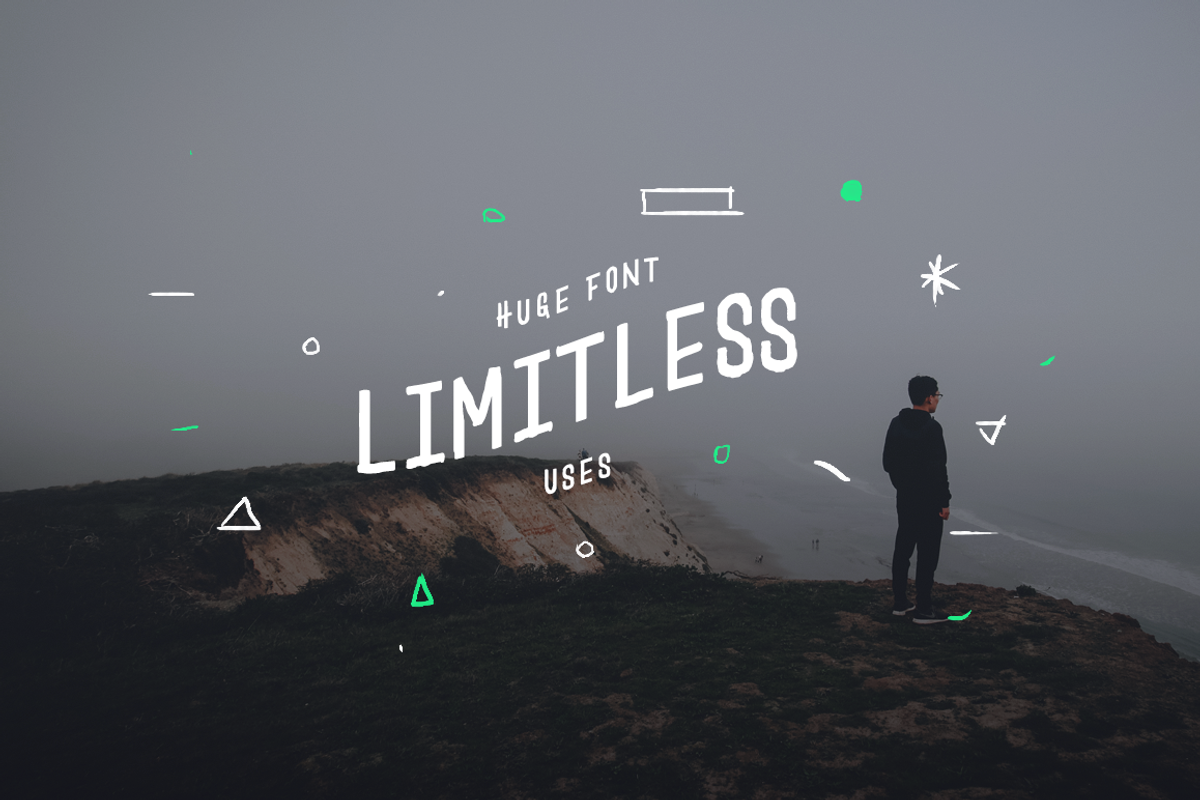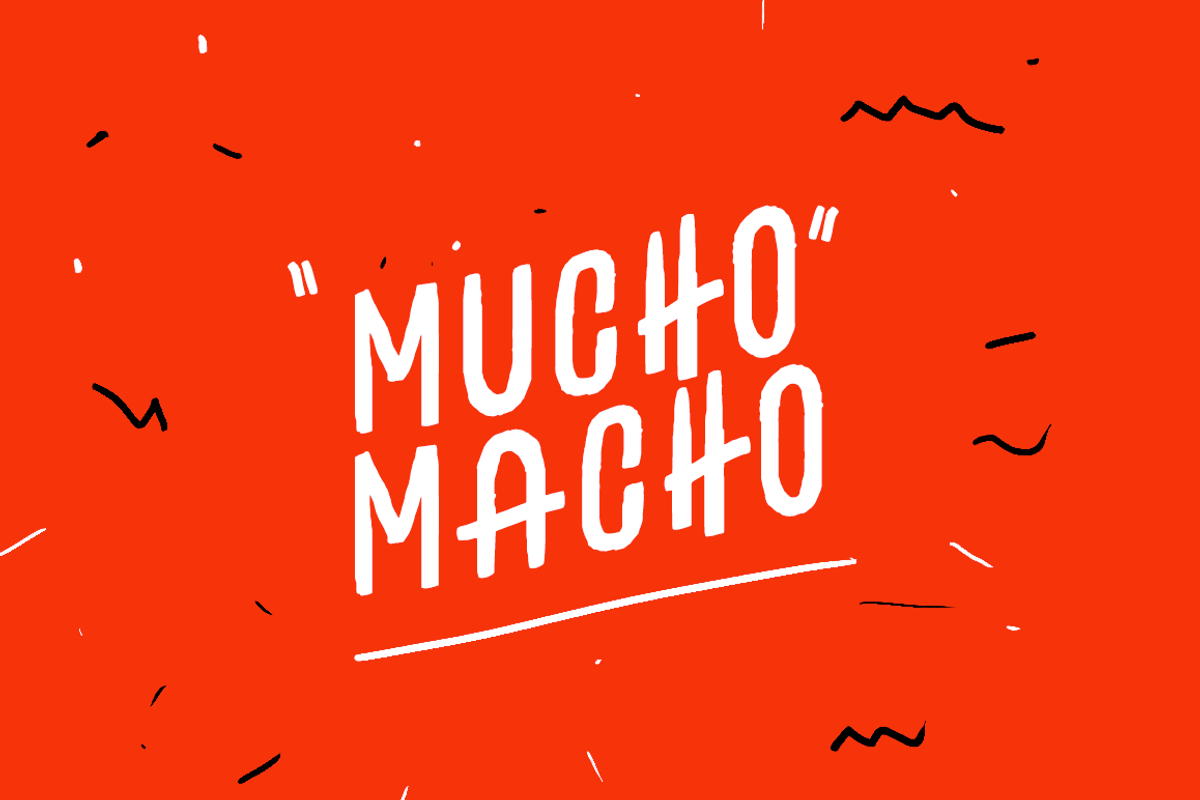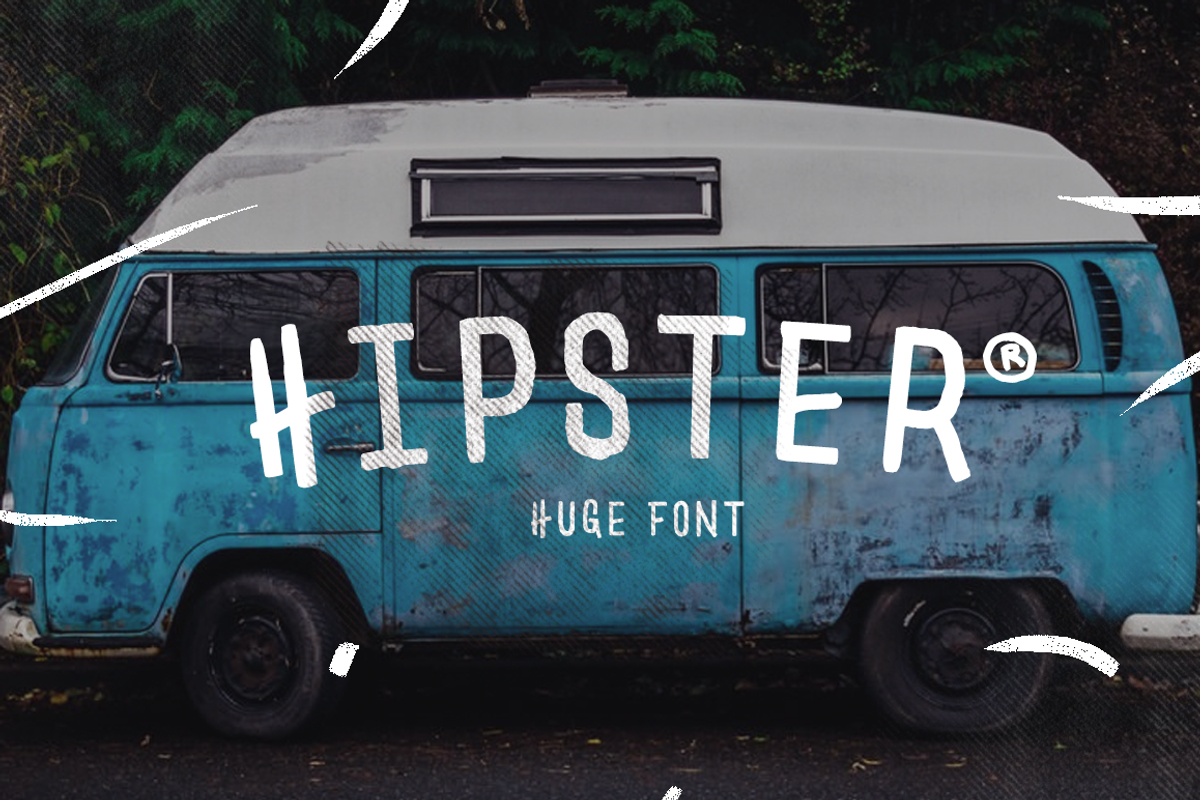
Huge Font
About Huge Font
"Huge" is a font inspired by the Mexican urban lettering, an irregular, raw and bold font perfect for cartels, logotypes, and advertising designs.